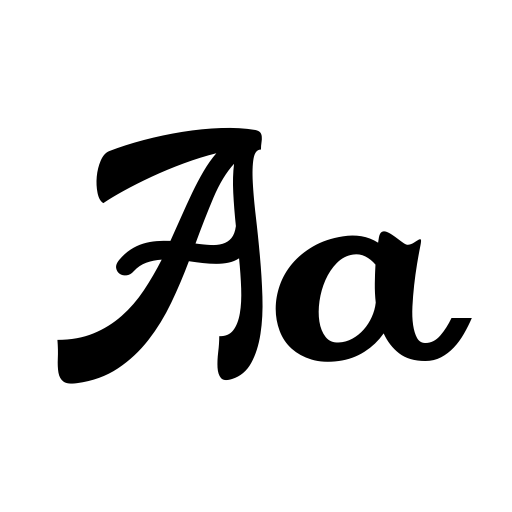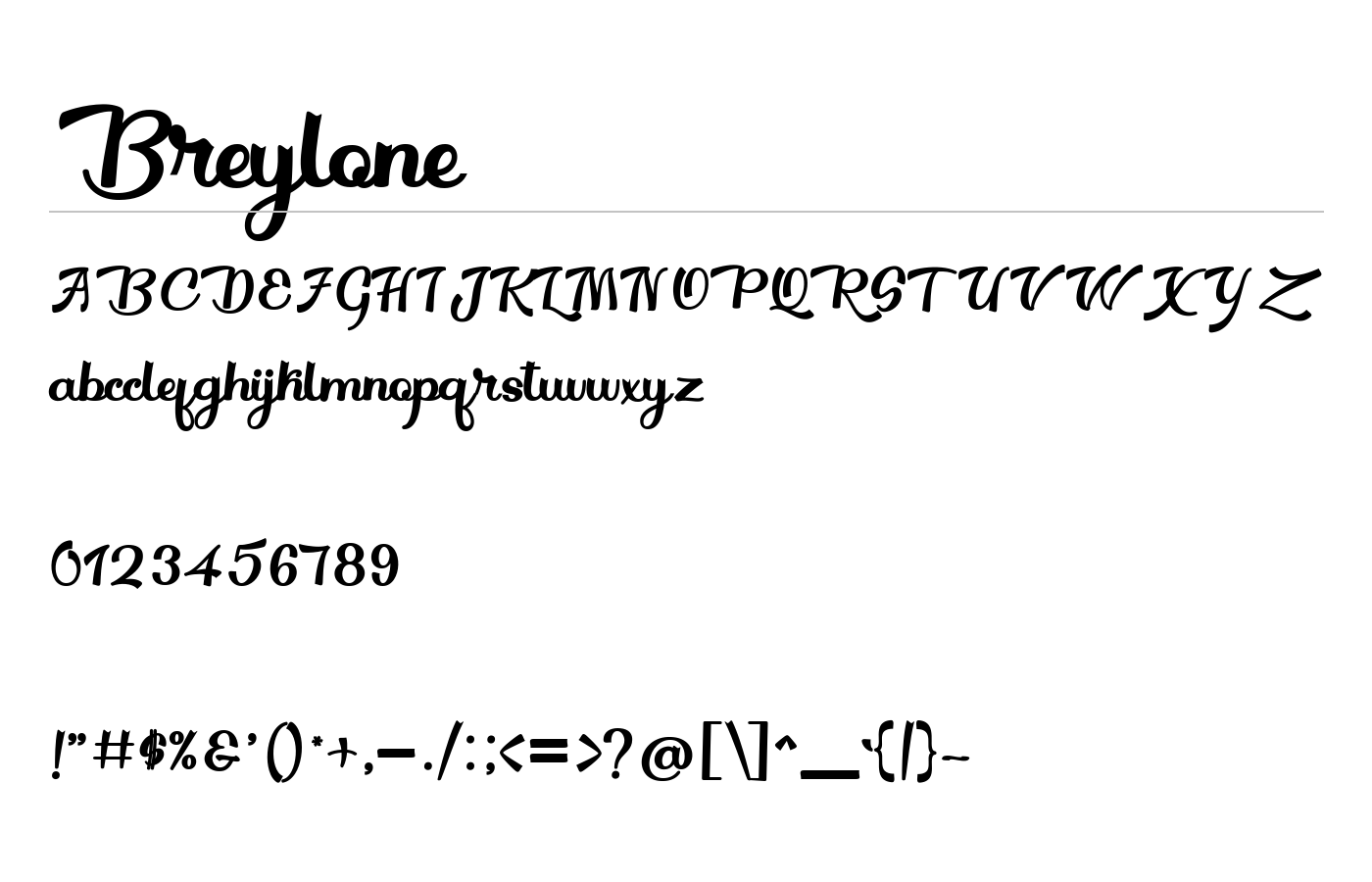
Breylone is a charming script font that combines a handcrafted, flowing style with readable letterforms, making it both elegant and approachable. Its medium weight and moderate contrast give it a balanced, lively personality perfect for creative branding, invitations, and stylish headlines. This font works well where a warm, friendly, and slightly vintage feel is desired, adding a personal touch without sacrificing professionalism.
Breylone Font